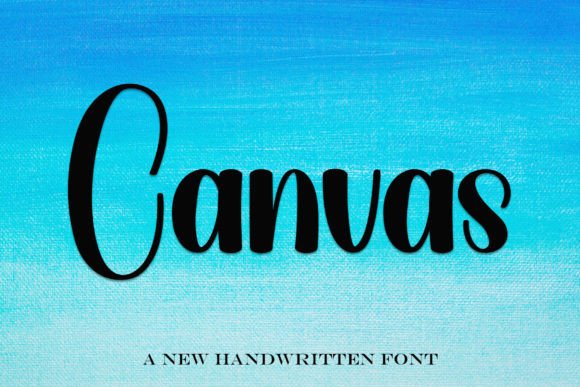
Introducing Canvas Font: Elevate Your Designs with Elegance
Are you on the hunt for a font that adds a touch of sophistication and whimsy to your projects? Look no further than Canvas Font, a stunning handwritten font that embodies elegance and timeless style. With its unique and beautiful design, Canvas Font is perfect for designers, crafters, and anyone looking to create spectacular designs that capture attention.
The Charm of Canvas Font
Canvas Font is described by its incredibly distinct and elegant touch, making it an ideal choice for a wide range of projects. Whether you’re working on a logo, branding materials, social media graphics, or even a website, this font is sure to impress. Its handwritten style exudes a sense of warmth and personality, adding a human touch to your designs that sets them apart from the rest.
Key Features of Canvas Font
- Handwritten Elegance: Canvas Font boasts a beautiful, handwritten design that adds an elegant touch to any project.
- Distinct Style: Its incredibly distinct style ensures that your designs stand out and are memorable.
- Timeless Appeal: Unlike trendy fonts that may quickly go out of style, Canvas Font has a timeless quality that ensures your designs remain relevant for years to come.
- Versatility: This font is versatile and can be used for a variety of projects, from digital designs to print materials.
Why Choose Canvas Font?
There are countless fonts available, but Canvas Font stands out for several reasons:
- Emotional Connection: The elegant and handwritten nature of Canvas Font helps create an emotional connection with your audience, making your designs more impactful.
- Easy to Read: Despite its elegant and artistic design, Canvas Font remains highly legible, ensuring that your message is communicated clearly.
- Customizable: As a digital font, Canvas Font can be easily customized to fit your project’s specific needs, including adjustments to size, color, and spacing.
Using Canvas Font in Your Projects
Canvas Font can be seamlessly integrated into a variety of design projects. Here are some ideas to get you started:
- Branding and Logos: Use Canvas Font to create a unique and memorable logo that reflects your brand’s personality.
- Social Media Graphics: Elevate your social media presence with stunning graphics that feature Canvas Font.
- Web Design: Add a touch of elegance to your website with Canvas Font, making it more inviting to visitors.
- Print Materials: From brochures and flyers to invitations and cards, Canvas Font can enhance any print material.
Tips for Maximizing the Impact of Canvas Font
To get the most out of Canvas Font, consider the following tips:
- Pair with Complementary Fonts: Combine Canvas Font with simpler fonts to create visual interest and hierarchy in your designs.
- Experiment with Colors: While the font itself is elegant, experimenting with different colors can further enhance its beauty and adapt it to your brand’s aesthetic.
- Play with Sizes: Don’t be afraid to vary the size of Canvas Font in your designs to emphasize certain elements and create a dynamic layout.
Canvas Font is more than just a font; it’s a design element that can elevate your projects with its elegant and timeless style. Whether you’re a professional designer or a DIY crafter, this beautiful handwritten font offers endless possibilities for creating spectacular designs. With its distinct charm, versatility, and emotional appeal, Canvas Font is sure to become a favorite in your design toolkit. So why wait? Fall in love with Canvas Font and bring your designs to life with its unique and captivating style.